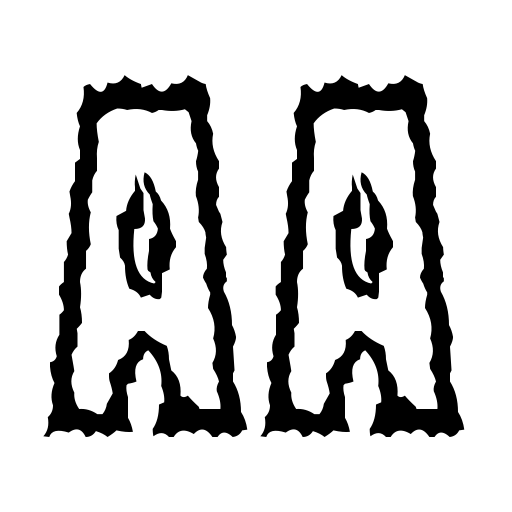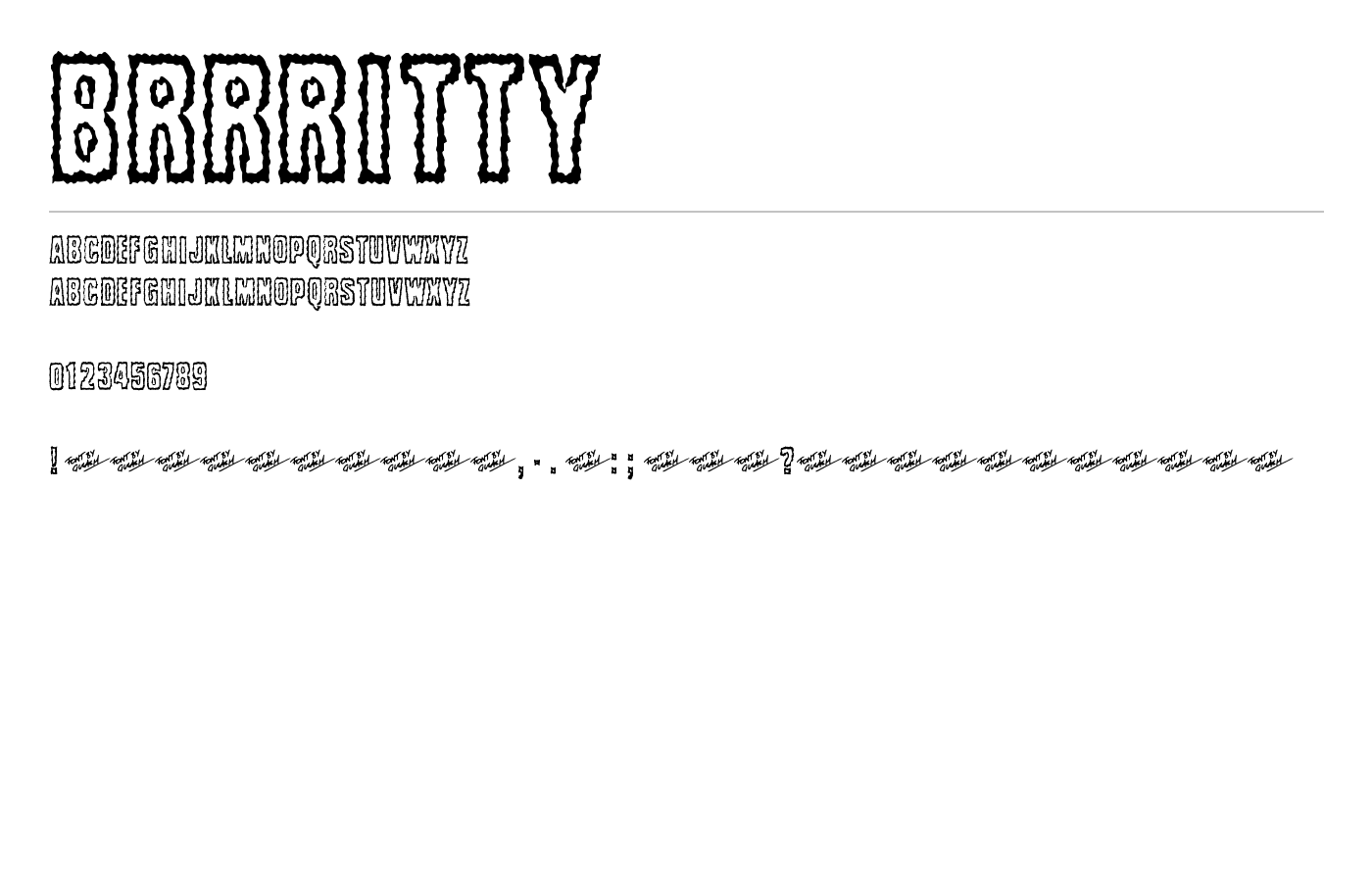
Brrritty is a bold, condensed sans-serif font with a playful, hand-drawn texture that creates a rough, jagged outline around each character. Its uppercase-only design and distinctive uneven edges give it a quirky, energetic vibe, making it ideal for eye-catching posters, playful branding, and creative headlines where a fun, informal feel is desired. This font works well when you want to add personality and a handcrafted touch to your design while maintaining strong visual presence.
Brrritty Font
About Brrritty Font